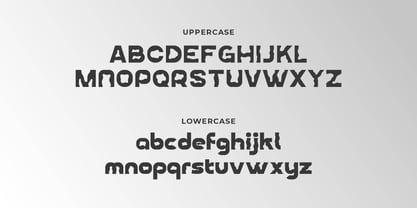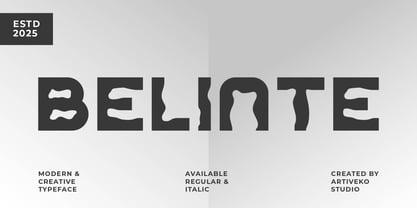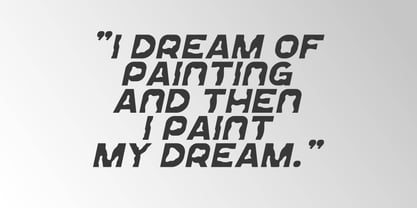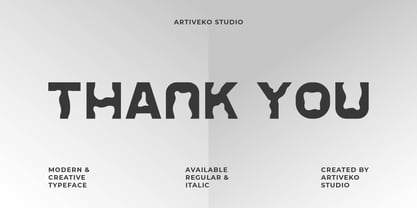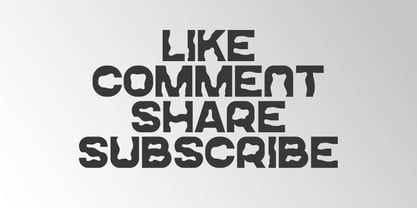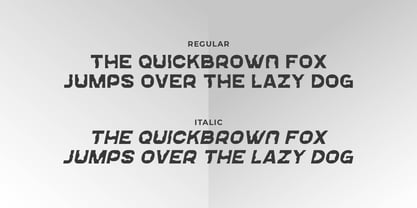
Belinte
by Artiveko
The Belinte Font Family was designed by Iwan Alwan and published by Artiveko. Belinte contains 2 styles and family package options. More about this family
Belinte is a unique sans serif font that blends minimalism with artistic flair. With its distinct letterforms and clean structure, Belinte offers a modern feel while maintaining personality—making it a perfect choice for branding, logos, websites, and editorial design.
Unlike traditional sans serifs, Belinte introduces subtle curves and balanced proportions, resulting in a font that feels fresh and professional. Moreover, its versatile design allows it to shine both in bold headlines and readable body text.
The font includes uppercase and lowercase letters, multilingual support, and a set of alternates and ligatures to enhance your creative possibilities. Whether you're designing for tech, fashion, or lifestyle brands, Belinte adapts effortlessly to your visual needs.
Designers: Iwan Alwan
Foundry: Artiveko